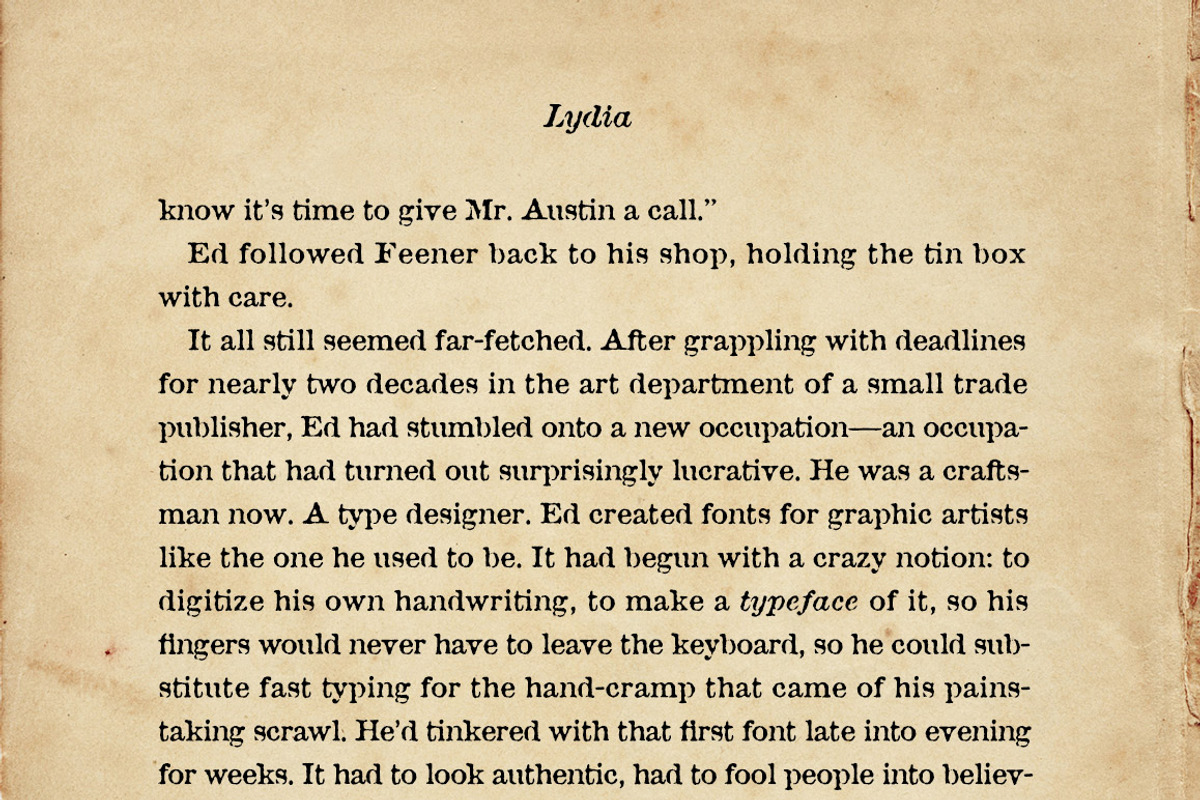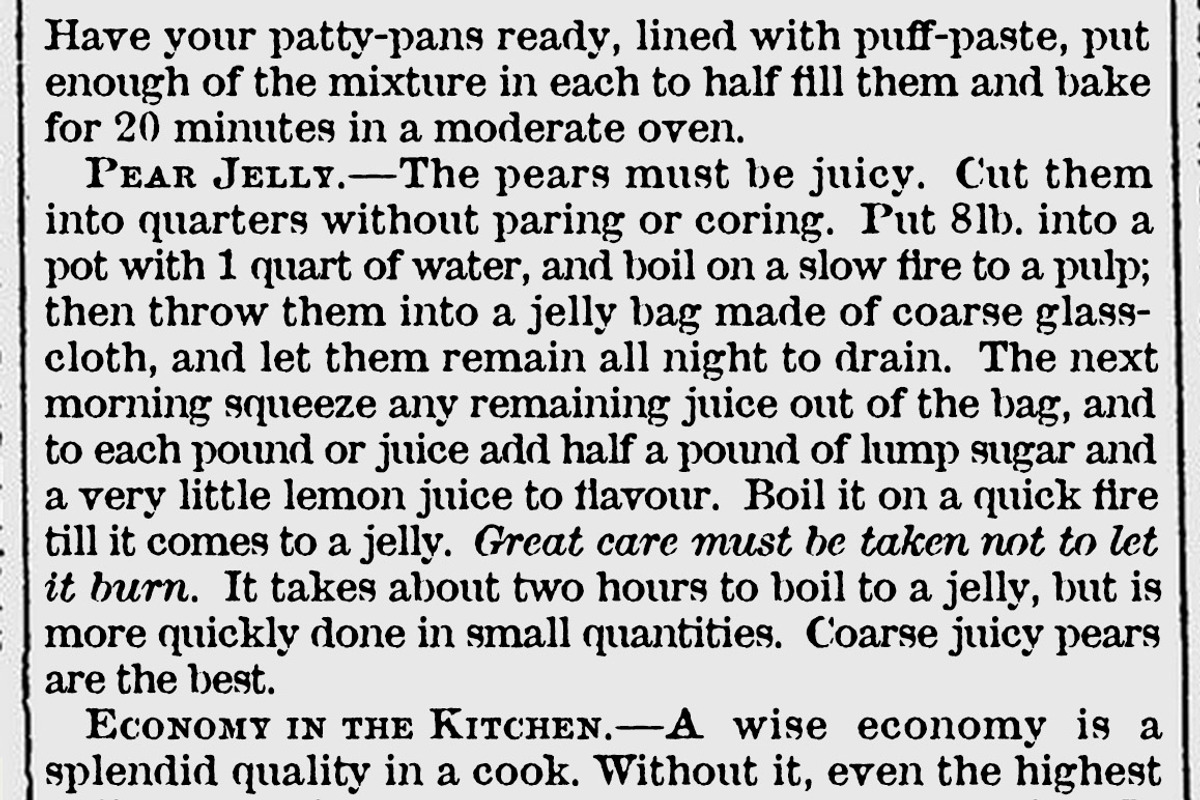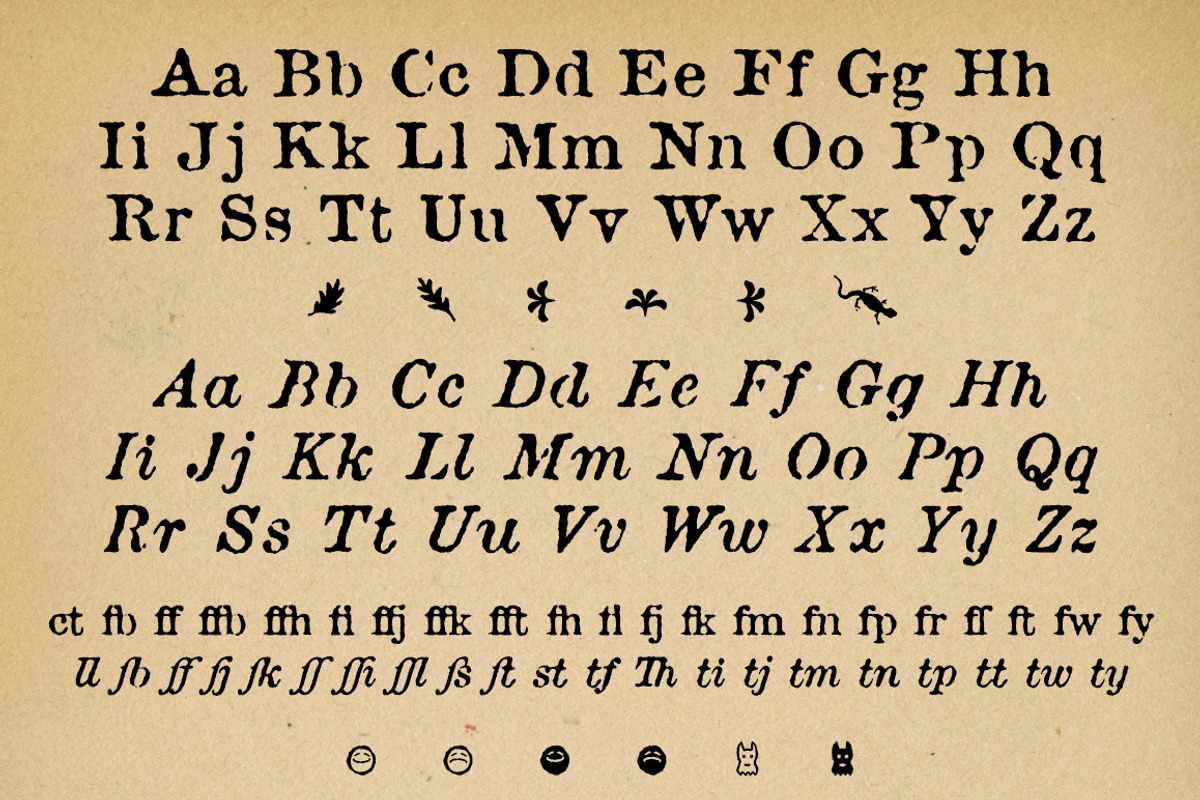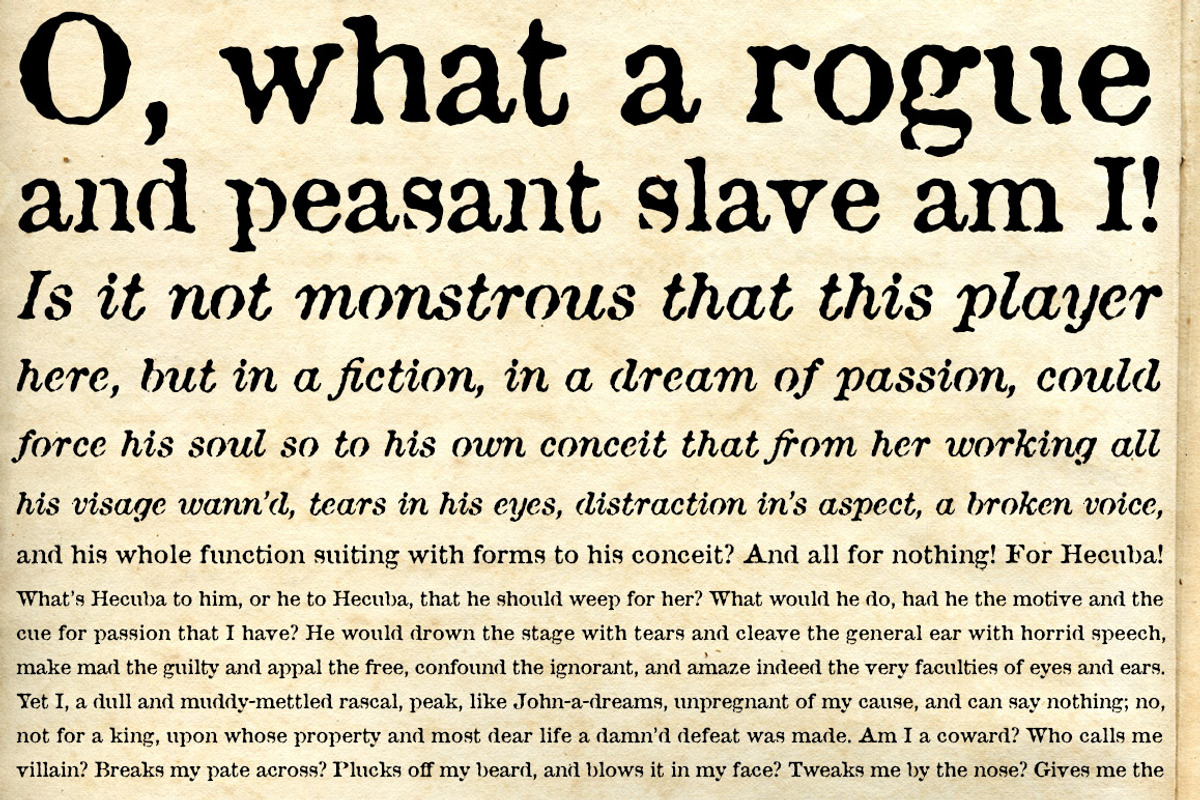
Attic Antique, a weathered serif font
Attic Antique, a weathered serif font by Three Islands Press is a font selected for branding, posters, packaging, typography.
- I picked and chose from among the printed characters, then hand-traced their shapes painstakingly, warts and all.
- Each has more than 800 glyphs—including true small caps, scores of ligatures, lining and old-style figures, and a few floral (and other) orn
- Attic Antique Regular
- Attic Antique Italic